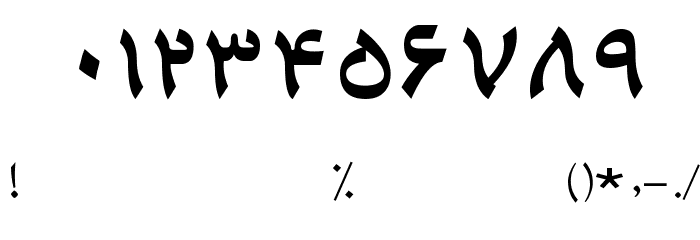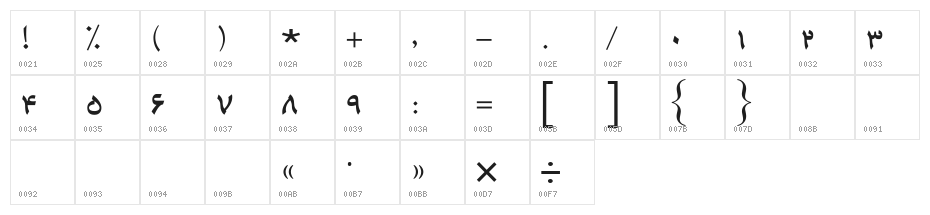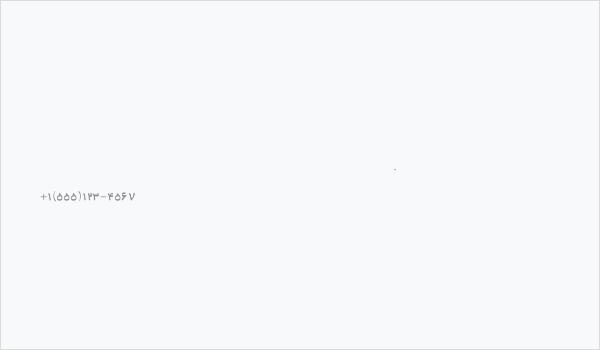
Sols Fancy Font
Sols Fancy Description
This font exhibits a unique and artistic style, characterized by its bold and decorative appearance. The characters have a distinct flair, with curved and pointed elements that give it an exotic and mystical feel. The numbers and special characters maintain this thematic consistency, offering a cohesive look across all glyphs. The font's design is reminiscent of ancient scripts, yet it maintains a modern touch that makes it versatile for various creative applications. Its bold strokes and intricate details make it stand out, ensuring that any text set in this font will capture attention.
| Proposed Projects | Ideal for fantasy-themed projects, book covers, posters, and branding that requires a unique and eye-catching typeface. |